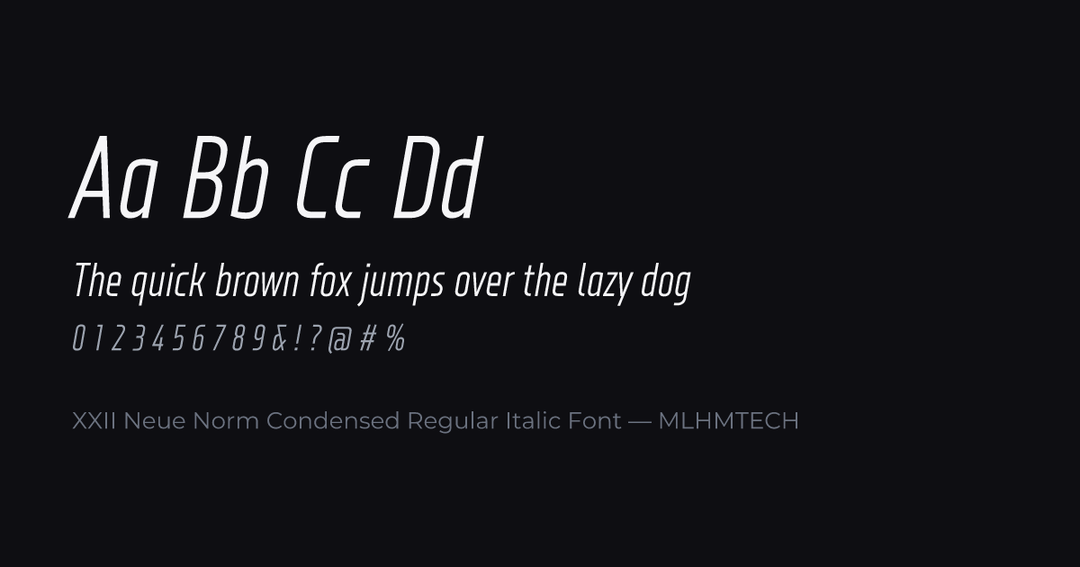
XXII Neue Norm Condensed Regular Italic Font
A modern condensed sans-serif italic font, ideal for impactful headlines and contemporary branding.
XXII Neue Norm Condensed Regular Italic is a sleek, condensed sans-serif typeface with an italic slant. Its narrow letterforms and dynamic angle make it perfect for grabbing attention in posters, titles, and branding materials.
This font brings a contemporary edge to any project, whether you're designing a logo, video title, or editorial layout. The condensed style allows for efficient use of space while maintaining strong legibility.
With its clean lines and modern aesthetic, this font pairs well with bold colors and minimalistic designs. Use it to create a strong visual hierarchy and convey a sense of confidence and innovation.